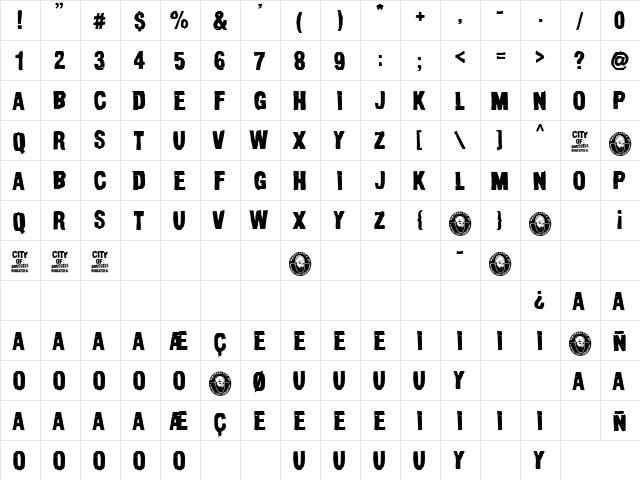
City of Brussels Regular
| Designer | Woodcutter Manero |
Design Context for City of Brussels Typeface
City of Brussels is a composed and adaptable typeface that performs quietly and consistently across a wide range of design contexts.